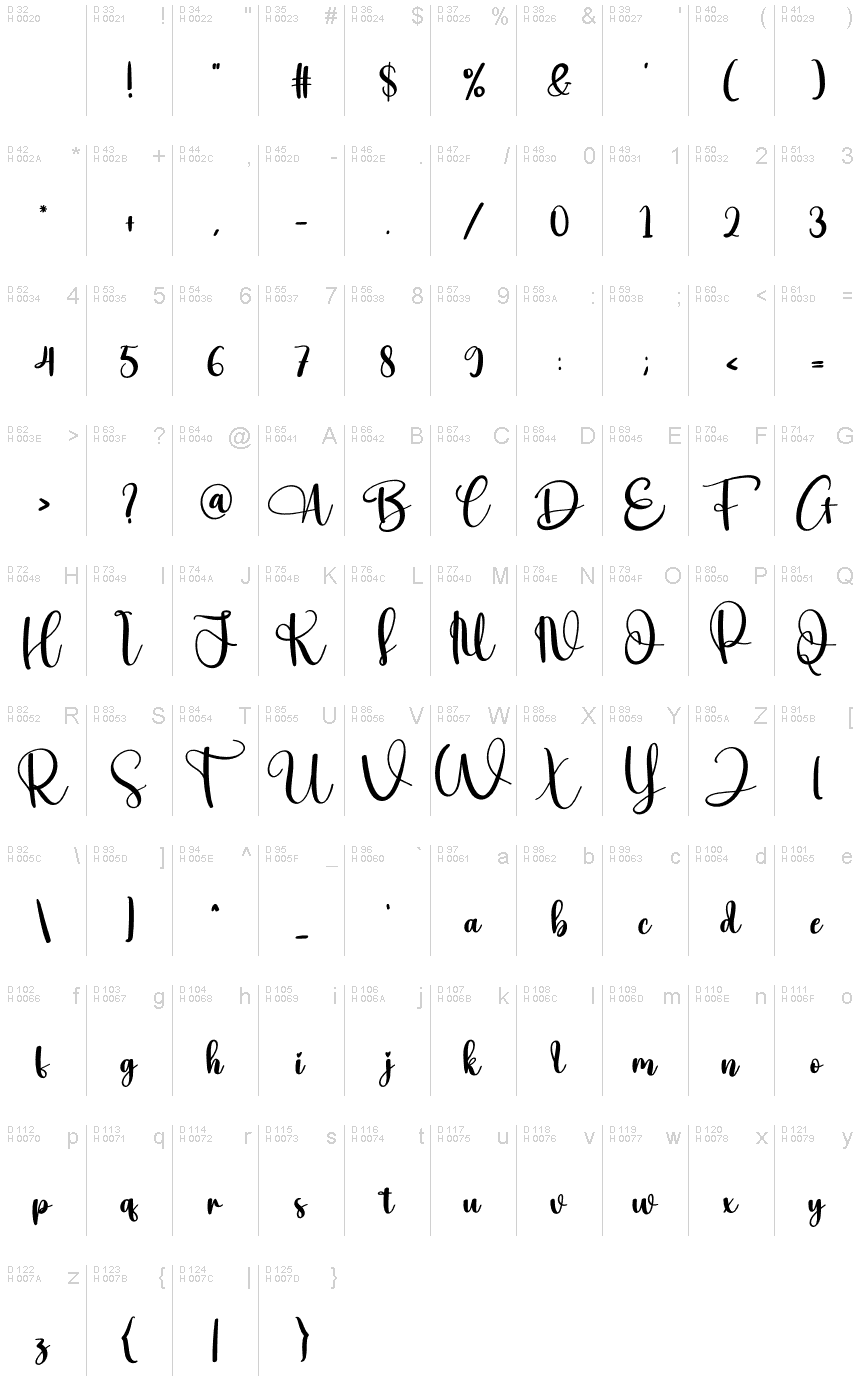
Breath
Breath, a modern calligraphy font by Scratchones, elegantly merges traditional handwriting with contemporary design. Its fluid strokes and graceful curves bring a touch of sophistication to any project.
With its versatile range of weights and widths, Breath is perfect for wedding invitations, branding materials, and luxury packaging. The delicate yet assertive nature of this font lends itself to fashion magazines, high-end cosmetics labels, and romantic novels alike. Whether conveying elegance or adding a personal touch to your creations, Breath is the epitome of refined beauty in typography.
The latest style letters are perfect for wall displays, wedding invitations, social media post logos, advertisements, product packaging, product designs, labels, photography, watermarks, invitations, stationery, and any project that requires taste handwriting.